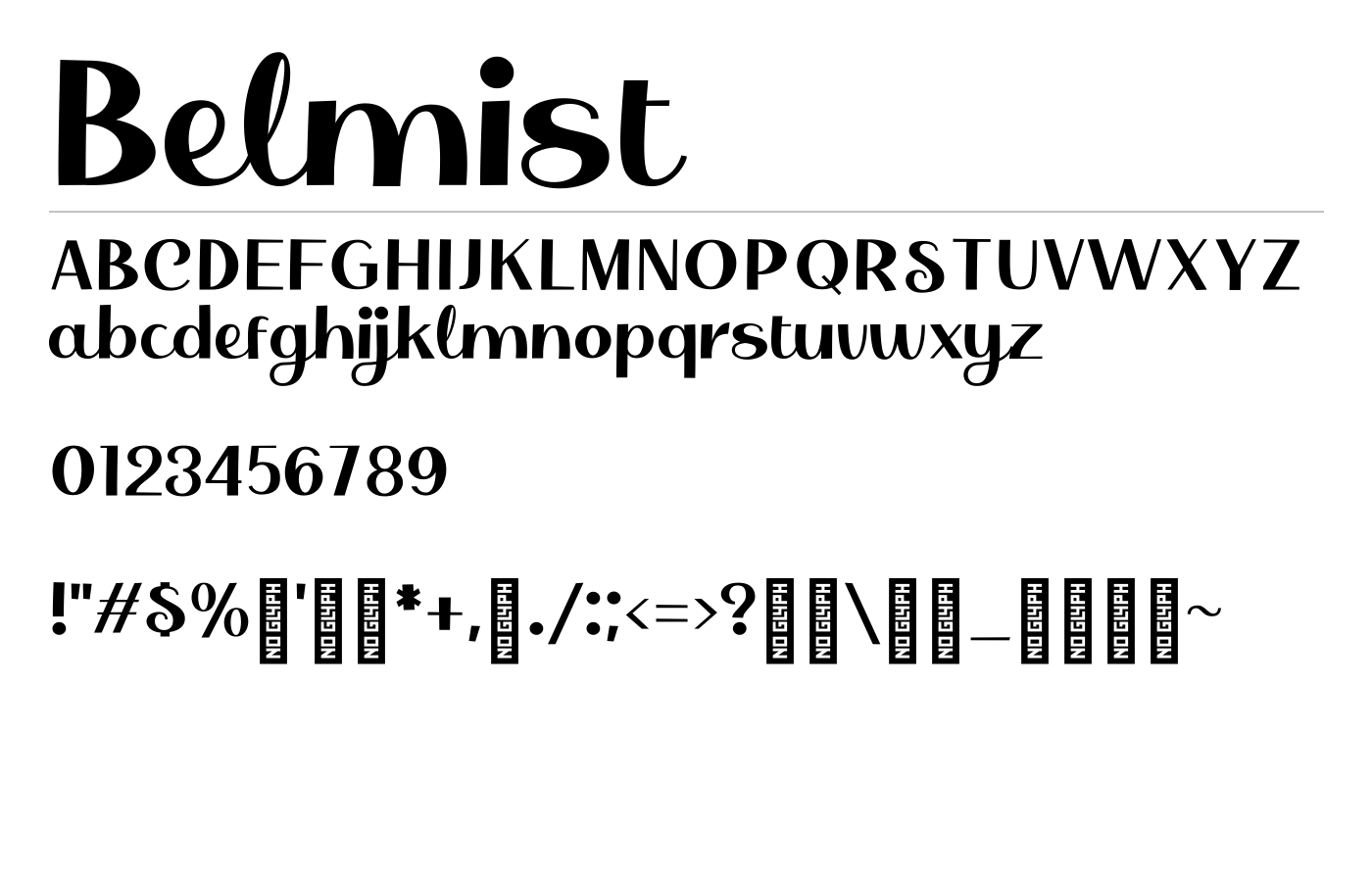
Belmist is a playful serif font with a unique mix of classic and quirky letterforms, featuring medium weight and moderate contrast between strokes. Its distinctive curved elements and elegant serifs give it a friendly yet refined personality, making it ideal for creative branding, editorial headlines, and stylish packaging. This font works well where a touch of sophistication combined with charm is needed to catch the eye and create a memorable impression.
Belmist Font